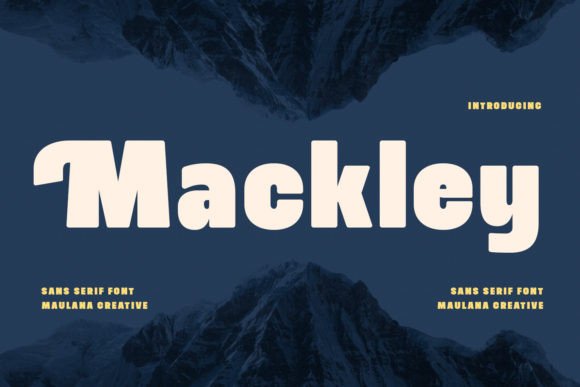
Journey into the realm of typography with Mackley Font, the display font that exudes boldness and creativity. This round extra bold sans serif font is crafted with precision, showcasing an audacious XBold stroke and a cast of playful, expressive characters. Adorned with a touch of ligature and stylistic elements, Mackley Font invites you to unleash your imagination and create designs that captivate and inspire.
Designed by the talented Maulana Creative, Mackley Font possesses a global soul, supporting over 100 languages. Its versatility knows no bounds, making it the perfect font for a myriad of projects, from fashion branding to social media posts, movie titles to book covers. Whether employed as a primary text font or paired gracefully with a script or serif font, Mackley Font is guaranteed to elevate your designs and leave a lasting impression.
Create logos that command attention, captivating social media posts that ignite engagement, and movie or book titles that intrigue and entice. Mackley Font's bold presence and playful charm make it an ideal choice for short and extended texts, adding a touch of sophistication and visual interest.
With Mackley Font, your creative possibilities are limitless. Its inherent versatility empowers you to craft stunning works of art that resonate with audiences and leave an enduring legacy. Dare to be bold, embrace the unconventional, and let Mackley Font be your trusted companion on this extraordinary design adventure.